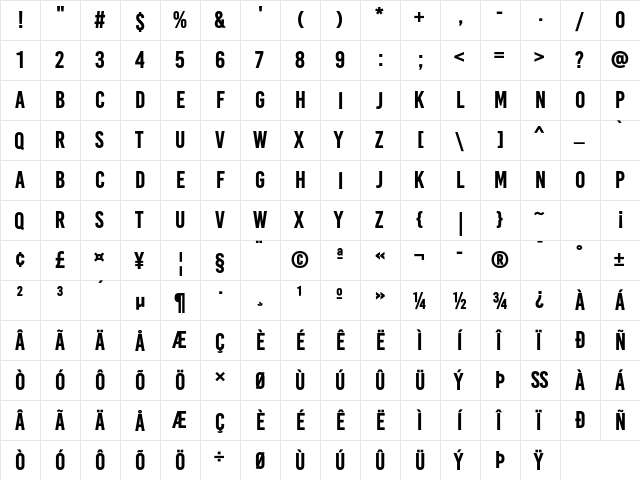
BaseOne Bold
| Foundry | Design by Basse |
| Designer | Domenico Catapano |
Design Context for BaseOne Typeface
BaseOne is a composed and adaptable typeface that performs quietly and consistently across a wide range of design contexts. Its bold stroke weight gives it real presence on the page.